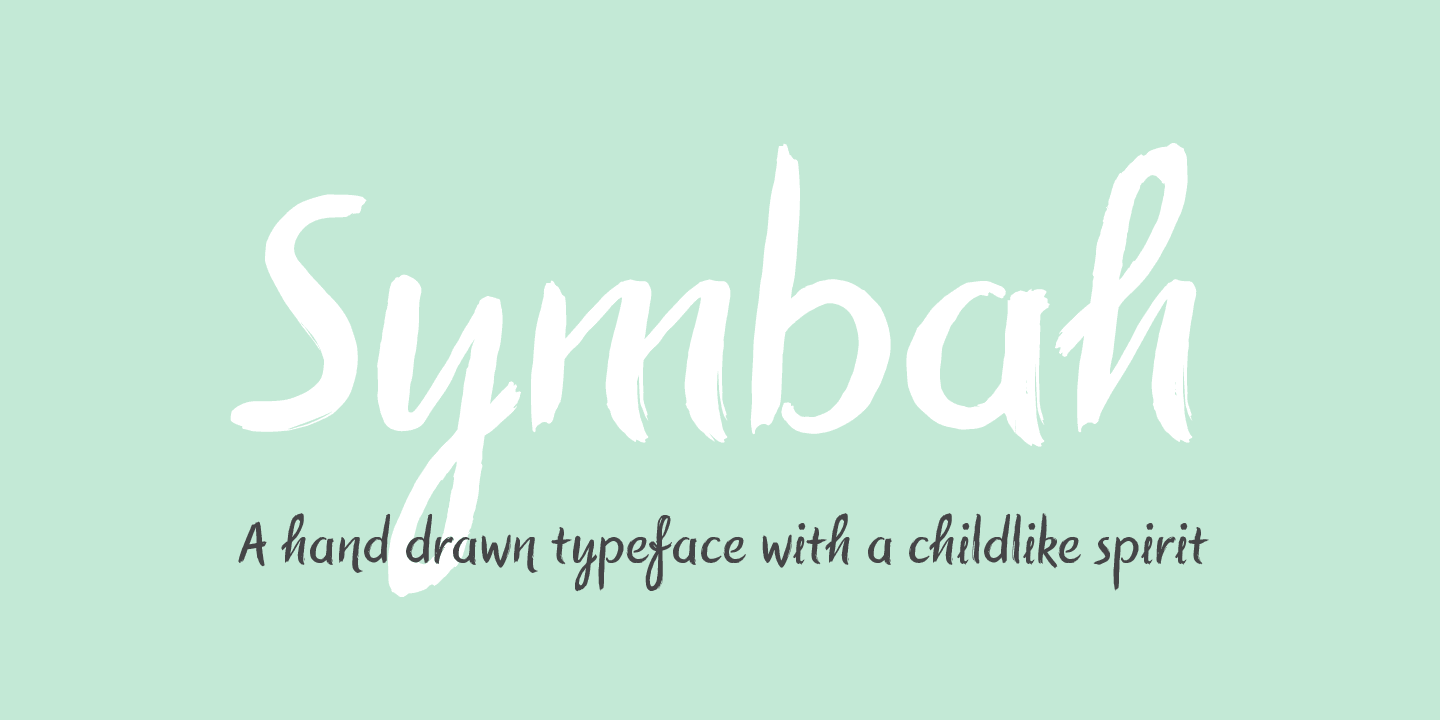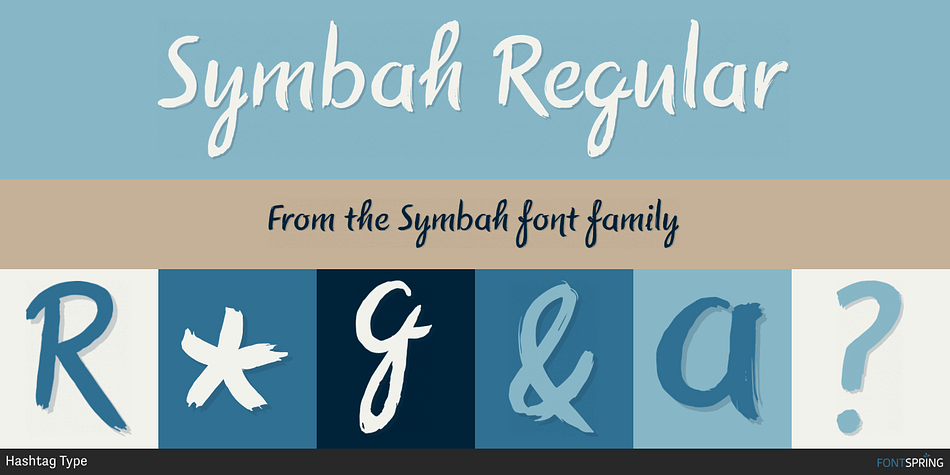
Designed by Rebecca Hurst, Symbah is a brush script font published by Hashtag Type.
Symbah is fun, a carefree hand drawn typeface with a child-like spirit. Made with a brush and ink, and then converted into a digital format for you to enjoy.
The design is fresh, organic and produced purely by hand and brush, a technique not replicated by digital methods alone. Symbah is full of personality and is ideal for projects that need creativity with an imaginative, and unique feel.
Details include a full European character set, manual edited kerning and spacing, ligatures and case-sensitive punctuation.